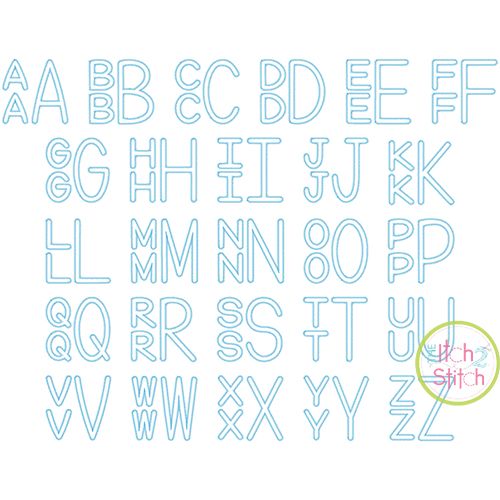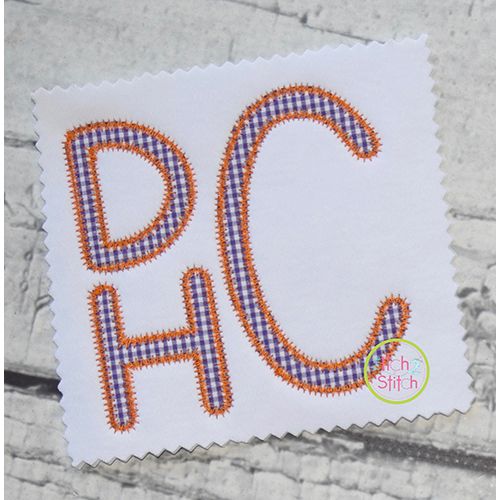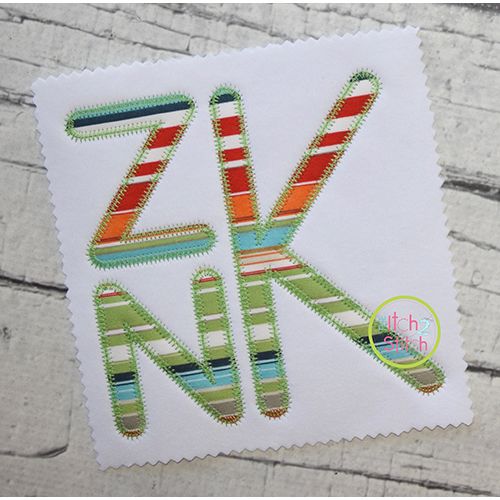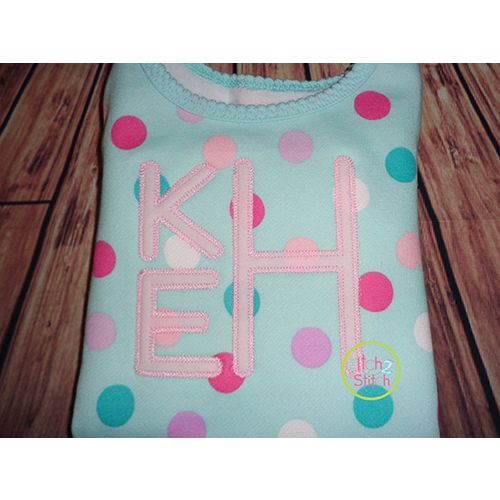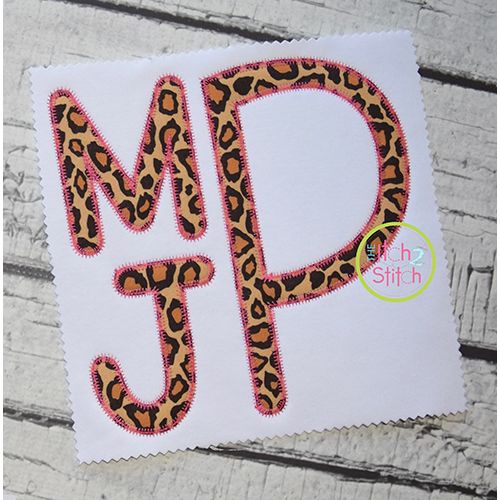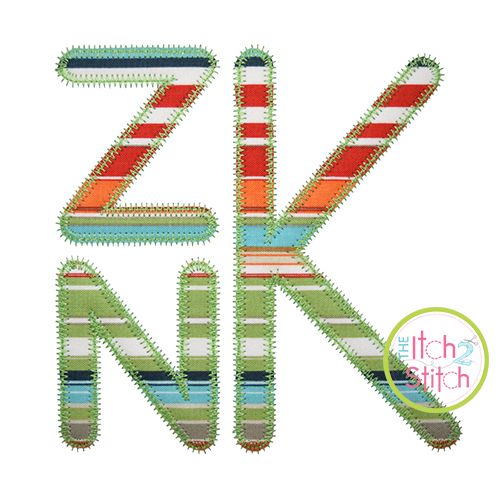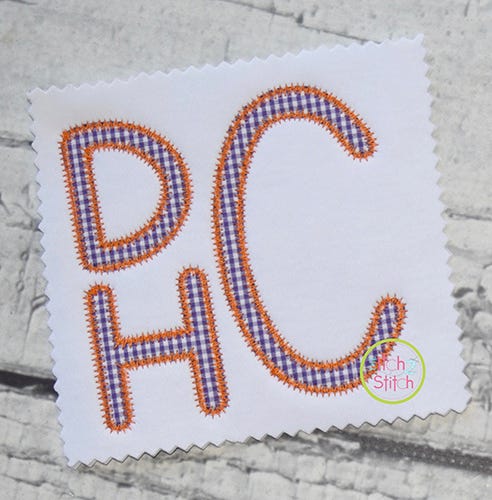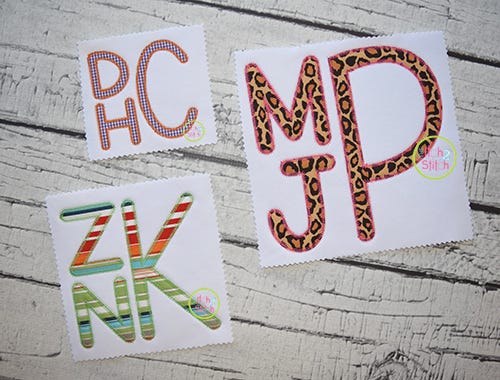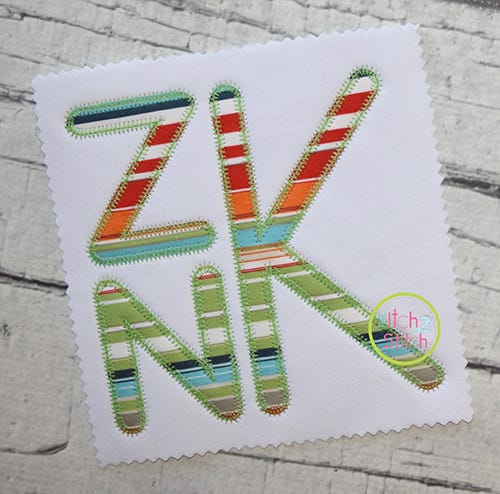
This is a zig zag stitch applique. Traditional satin stitch and bean stitch versions are sold separately.
To create a square shaped monogram with this font, use two small "lowercase" letters stacked on the left and a large "capital" letter on the right from the same size folder.